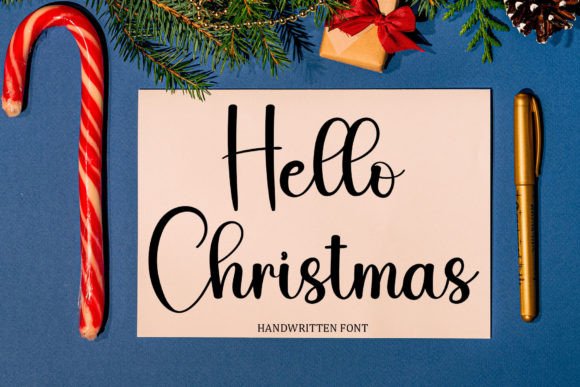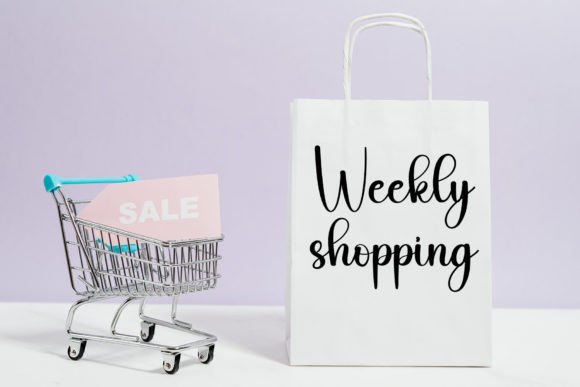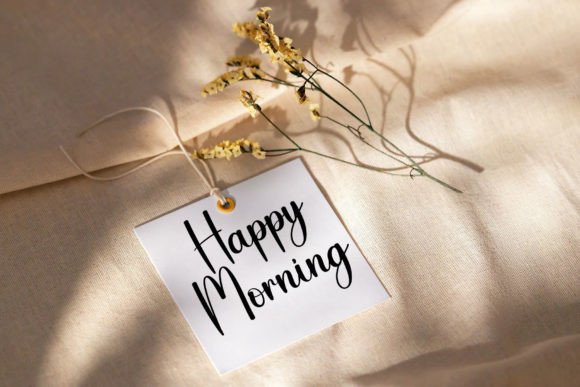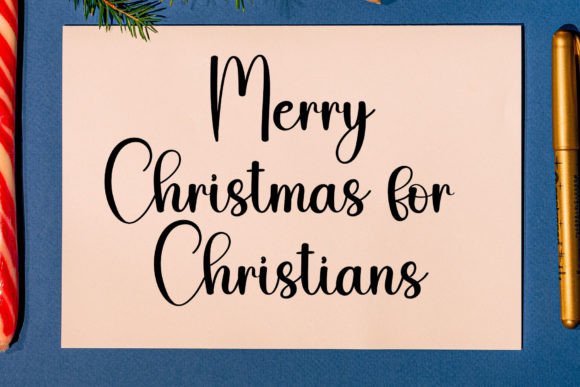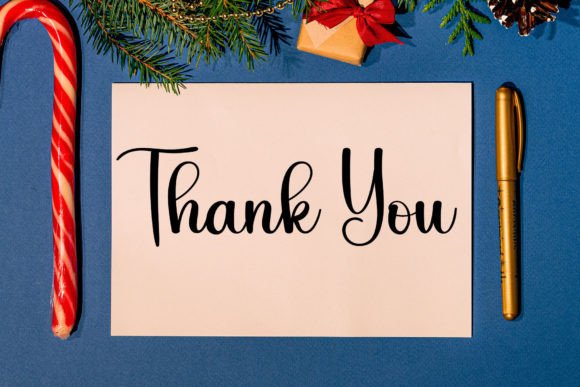
Hello Christmas Font
About Hello Christmas Font
“Hello Christmas” is not just a font; it’s a sweet and beautiful handwritten typeface designed to bring a touch of elegance and luxury to your design projects. With characters that dance along the baseline, this font offers a unique and delightful style, perfect for creating a festive and sophisticated atmosphere.
The sweetness of “Hello Christmas” is evident in its carefully crafted handwritten style. The characters are thoughtfully designed to convey a sense of charm and warmth, making it a delightful choice for projects associated with the festive season or any design that seeks a touch of holiday spirit.
The dancing baseline adds a playful and dynamic element to “Hello Christmas.” This feature contributes to the font’s uniqueness, creating a sense of movement and liveliness in the text. It becomes an ideal choice for designs that require a bit of flair and personality.
The luxury spark that “Hello Christmas” brings to your design projects is achieved through its overall aesthetic. The font’s handwritten charm combined with its festive vibe makes it suitable for various applications, from holiday cards and invitations to seasonal branding and decorative elements.
Embrace “Hello Christmas” to infuse your designs with a sense of joy and luxury. Let this font be the key to creating projects that stand out during the holiday season or any occasion that calls for a touch of celebration. “Hello Christmas” is more than just a font; it’s an invitation to add a festive and beautiful flair to your creative endeavors.